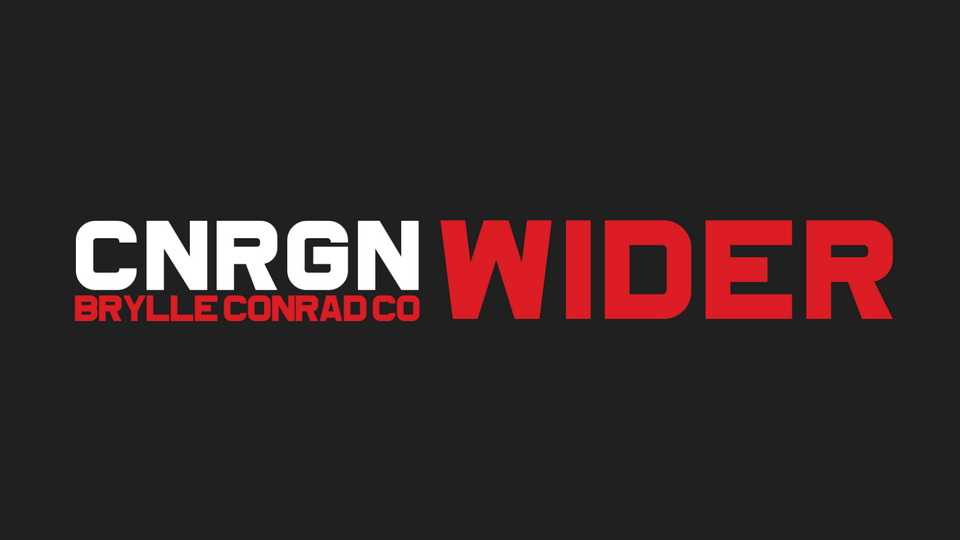
Download CNRGN Wider font, a bold and blocky display typeface. With its strong and sporty personality CNRGN Wider font is made for secondary text, perfect for posters, headlines and impact messages.
Designer: Brylle Conrad Co